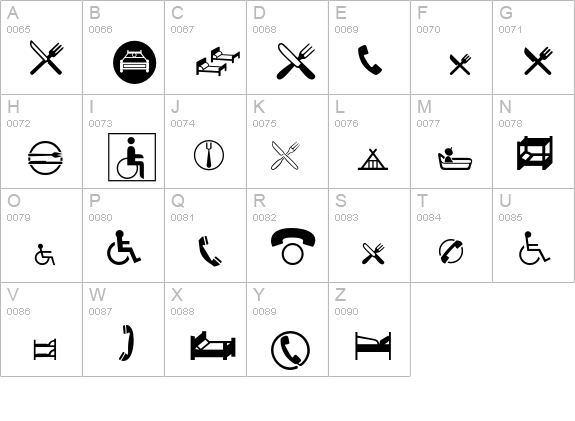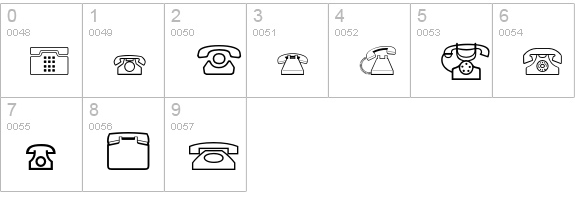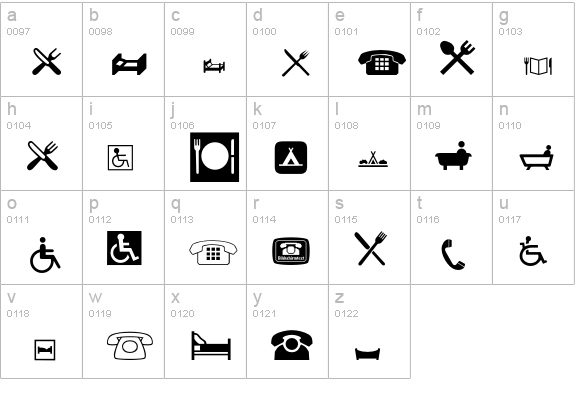
CommunicationsP01 Font Details
CommunicationsP01 is a stylish and versatile font that is perfect for a wide range of design projects. With its modern and clean lines, this font exudes professionalism and sophistication. Whether you are creating a logo, designing a website, or working on a print publication, CommunicationsP01 will add a touch of elegance to your work. One of the best things about CommunicationsP01 is that it is completely free to download. You can get your hands on this amazing font at FontsMarket.com, where you will find a wide selection of high-quality fonts for all your design needs. Don't miss out on the opportunity to add CommunicationsP01 to your font collection today!